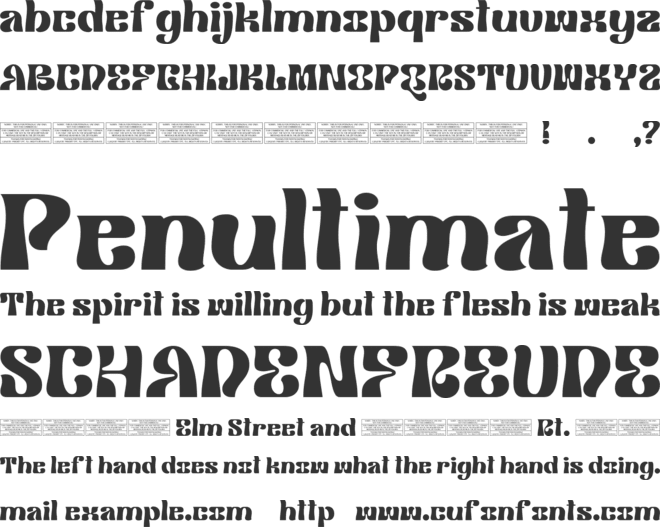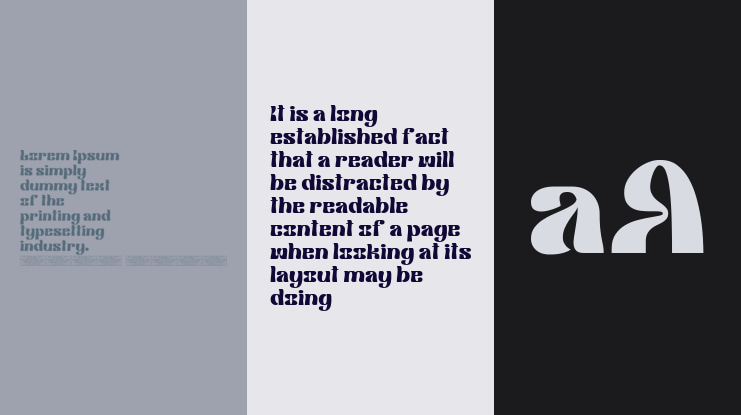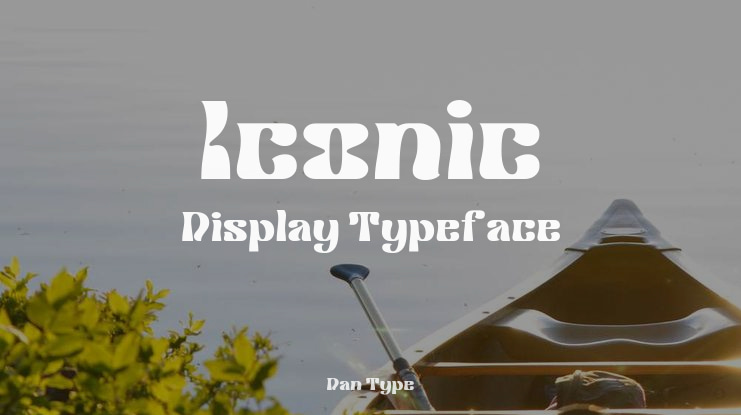
Iconic Display Font
Iconic Display Font - This font would be perfect for photography, watermarks, social media posts, advertisements, logos & branding, invitations, product design, labels, stationery, product packaging, special events, and other projects. This font is PUA encoded which means you can access all glyphs with ease!
Iconic Display font preview
Iconic Display font
Dan Type